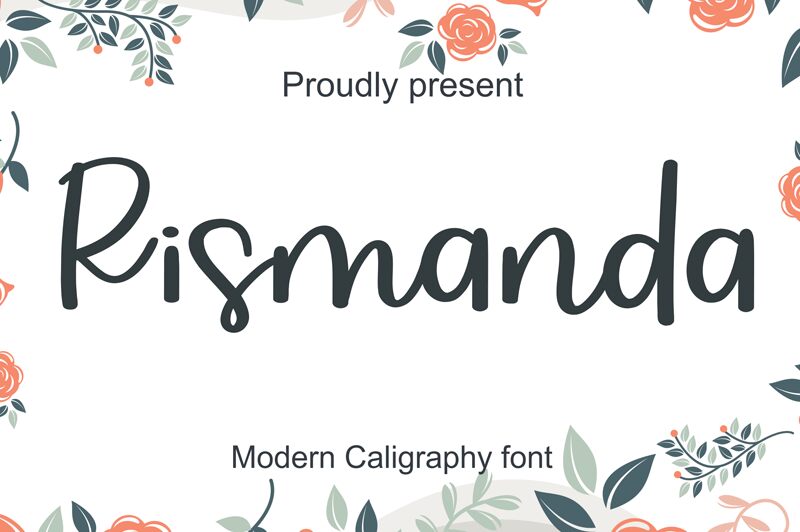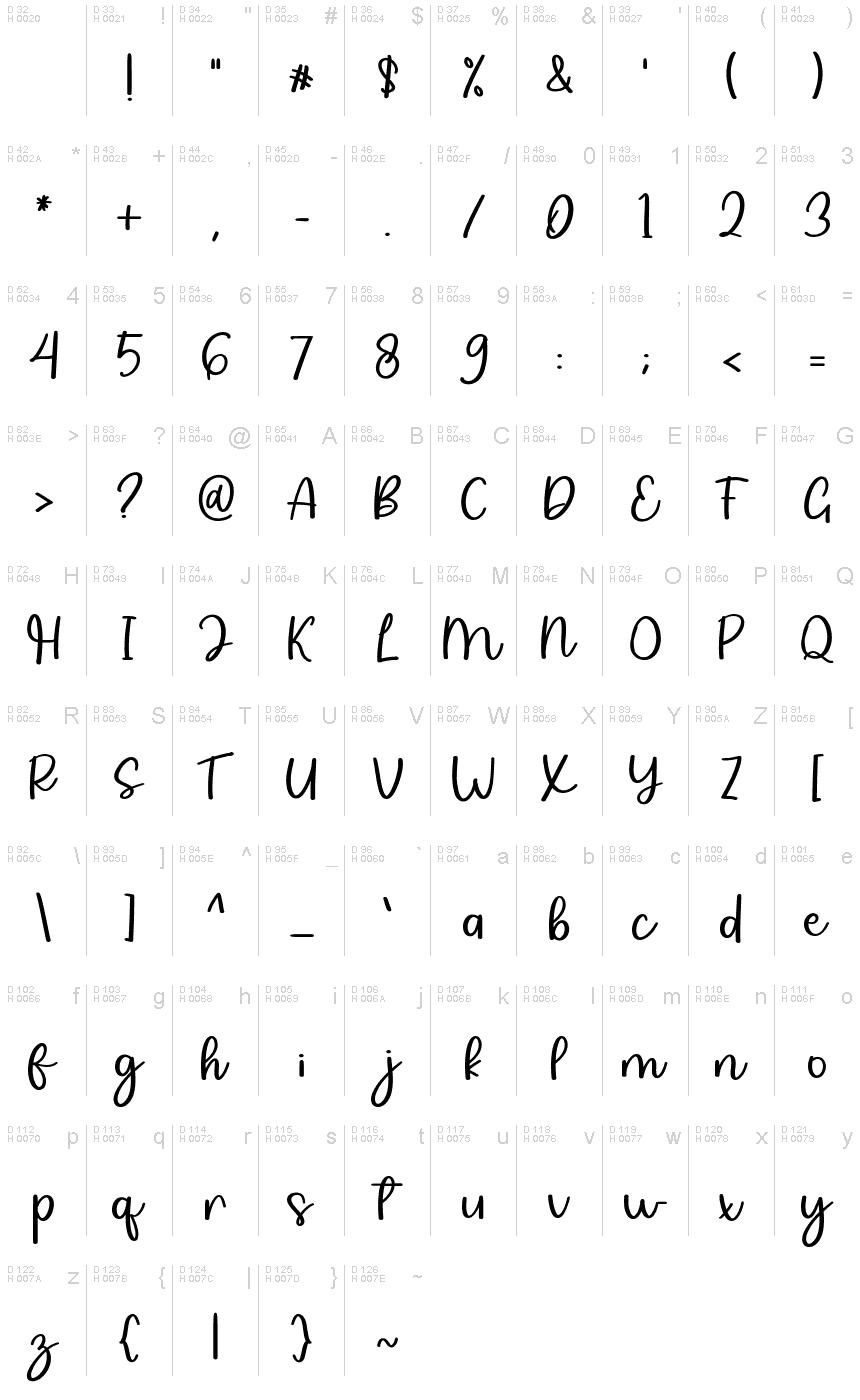
Rismanda
Rismanda, crafted by the talented Erlina Graphic, is a captivating handwritten font that exudes an air of elegance and sophistication. With its semi-light weight, Rismanda adds a touch of grace to any project. Perfect for wedding invitations, feminine branding, and delicate stationery designs. This versatile typeface lends itself beautifully to fashion blogs, lifestyle magazines, and inspirational quotes. Its fluid strokes and effortless charm make it equally suitable for logo designs seeking a personal touch or children's book illustrations that call for a whimsical feel. Let Rismanda elevate your creative endeavors with its exquisite handcrafted appeal.